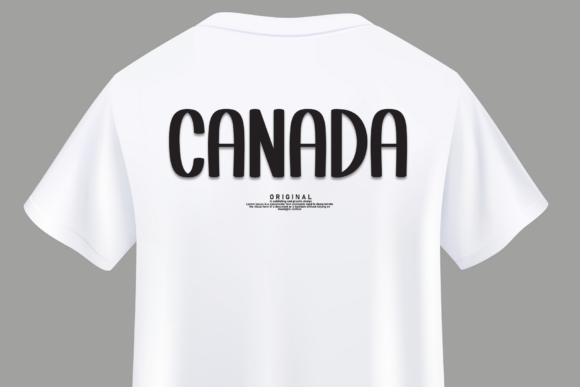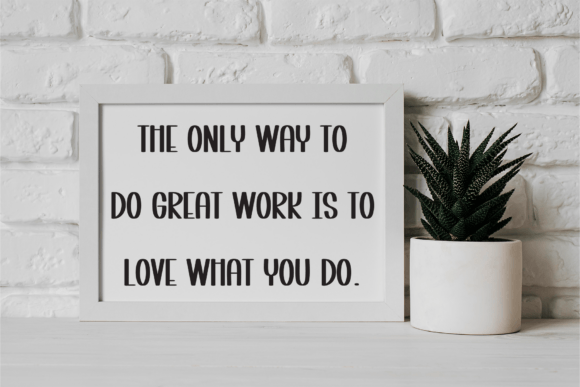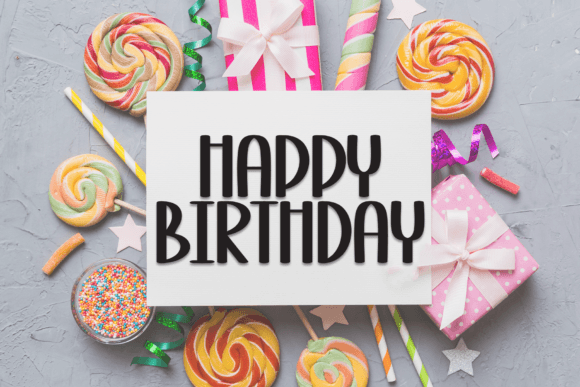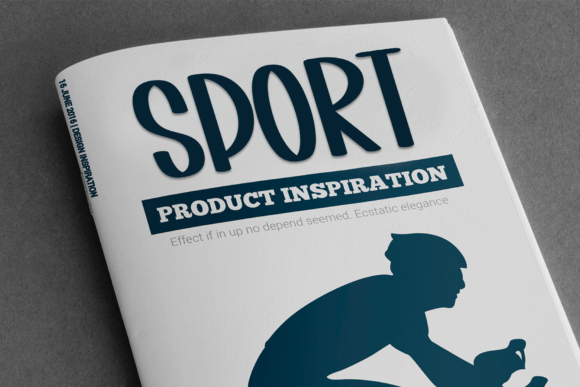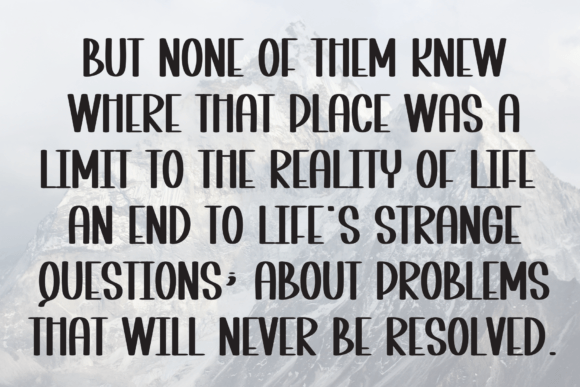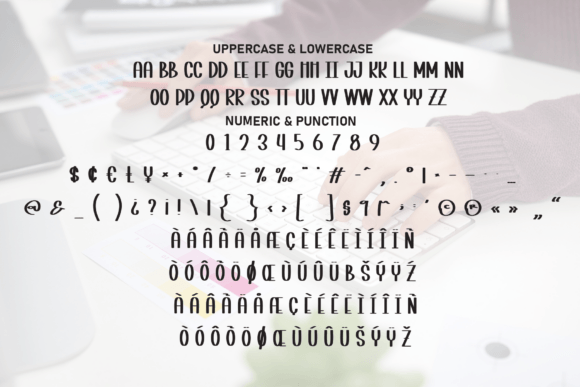
The Perfect Font to Make a Statement
Have you ever stared at a blank canvas, wondering how to bring your creative vision to life? That’s exactly where I was when I first laid eyes on the Graphic Designer Font. Its bold, tall letters seemed to leap off the page, demanding attention and begging to be used. And that’s exactly what I did – I let it take center stage in a project that needed a modern and stylish twist.
The Graphic Designer Font is a display font designed to make a big impact. With its strong, sleek letters, it’s perfect for headlines, posters, and creative projects that need to stand out from the crowd. And as a designer, I can tell you that it’s a valuable addition to any toolkit – adding a touch of sophistication and style to even the most mundane projects.
Key Features of Graphic Designer Font
- Font Family: Graphic Designer Font
- Unique Characteristics: Includes 1200+ glyphs, 20 font styles, and advanced OpenType features for professional typography
Graphic Designer Font Review
Overall, I’m impressed with the Graphic Designer Font, but it has its pros and cons. Here’s my honest review:
- Highly legible: The font is designed to be easy to read, even at small sizes.
- Neutral style: It won’t clash with most designs, making it a versatile choice.
- Perfect for body text: The font is well-suited for large blocks of text, making it ideal for articles, blog posts, and other content-heavy projects.
- Lacks personality: The font is a bit too safe and doesn’t have a distinct personality.
- Not ideal for headlines: While it’s great for body text, the font can get lost in smaller sizes and may not grab attention as a headline.
- Not suitable for creative projects: If you’re working on a project that requires a lot of flair and creativity, this font might not be the best choice.
Overall, I’d give the Graphic Designer Font 3.5 out of 5 stars. It’s a solid choice for most projects, but may not stand out in more creative or attention-grabbing contexts.
For optimal results, use the Graphic Designer Font in conjunction with high-quality images and well-designed layouts.
Experiment with different font sizes, colors, and styles to create visual interest and hierarchy in your design.
Consider using the Graphic Designer Font in combination with other typography elements, such as headings and subheadings, to create a cohesive and professional design.
The Graphic Designer Font is suitable for a wide range of applications, including:
Business cards and letterheads
Brochures and flyers
Presentations and reports
Web design and development
Alternative Font Options for Graphic Designers
Open Sans is a clean and modern sans-serif font that is highly legible and versatile. It is suitable for body text, headings, and titles. Use Open Sans for digital products, websites, and documents where readability is crucial. Compared to Graphic Designer Font, Open Sans has a more neutral tone and is more suitable for modern designs.
Lato is a sans-serif font with a strong personality and a touch of elegance. It is perfect for creating a sophisticated and modern look. Use Lato for branding, advertising, and editorial content where you want to convey a sense of luxury and style. Compared to Graphic Designer Font, Lato has a more distinctive character and is better suited for high-end designs.
Montserrat is a sans-serif font inspired by the urban landscape of Buenos Aires. It is highly legible and versatile, making it suitable for a wide range of applications. Use Montserrat for urban, industrial, or edgy designs where you want to convey a sense of grit and sophistication. Compared to Graphic Designer Font, Montserrat has a more edgy tone and is better suited for bold and modern designs.